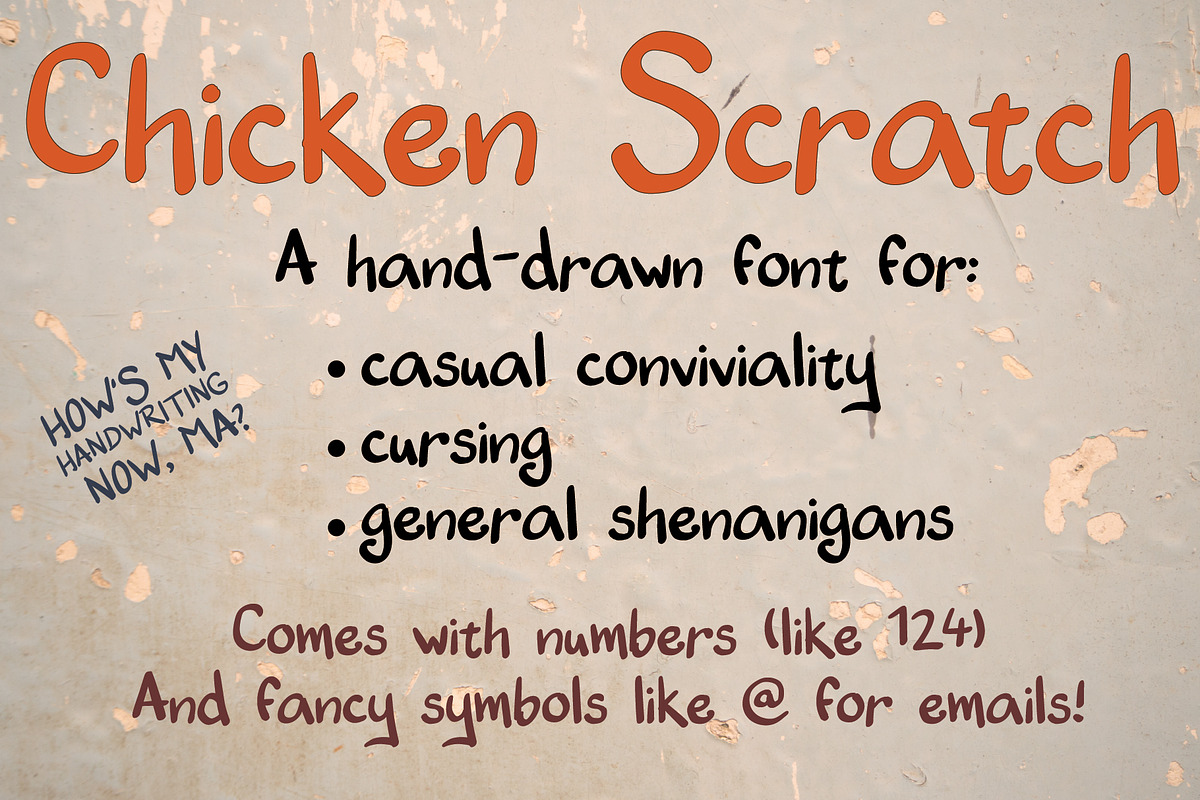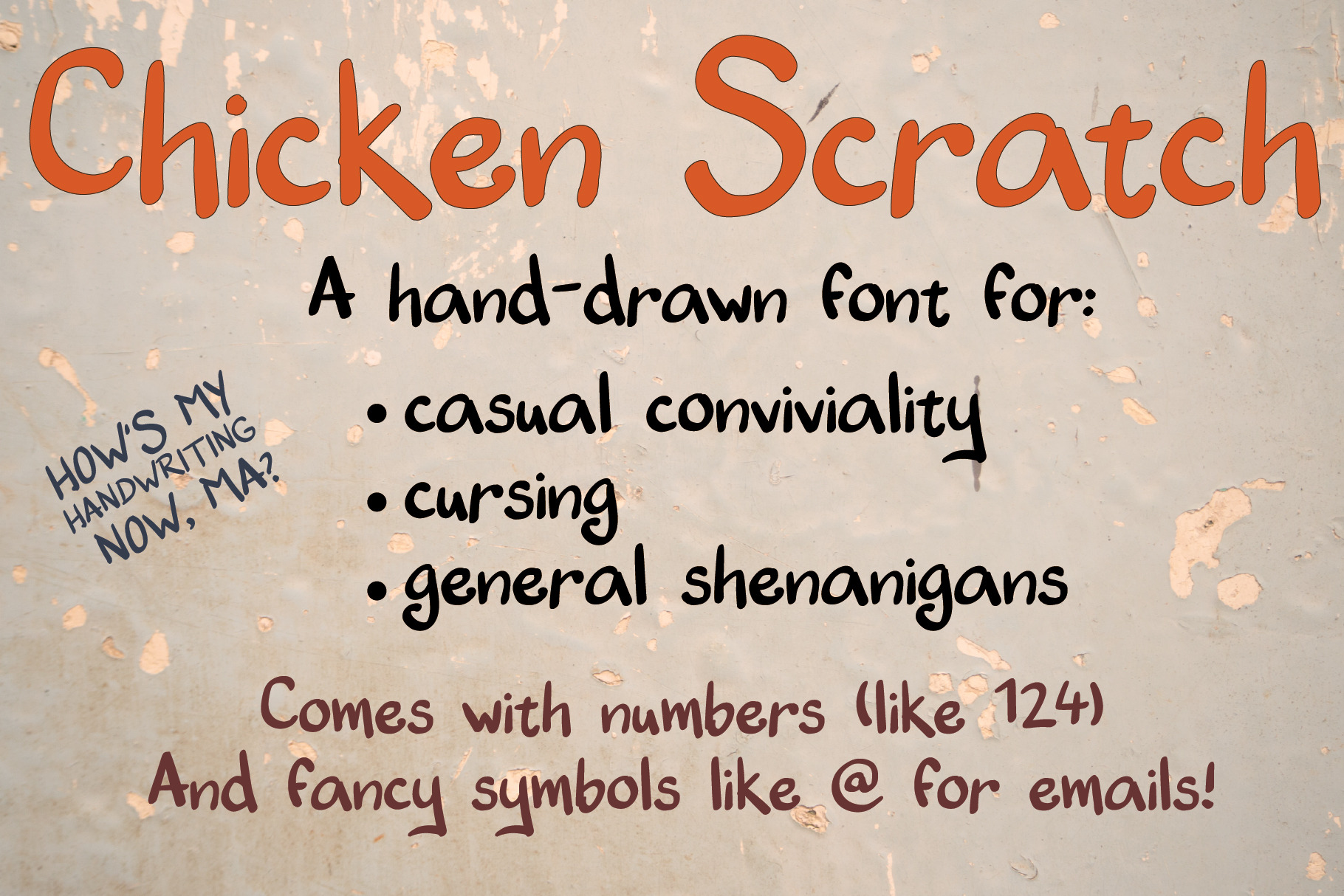
Chicken Scratch — A hand-drawn font
Mom always said my handwriting was not readable. Well, I'll show her— I'll make it into a font, or maybe several fonts!
Chicken Scratch is a hand lettered font that plays fast and loose with the baseline, x-line, and ascenders, but still scans pretty nicely if I do say so myself.